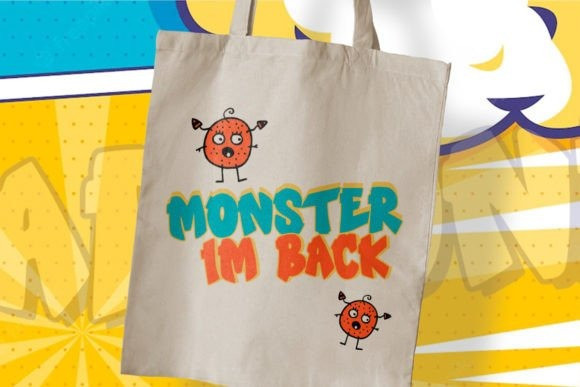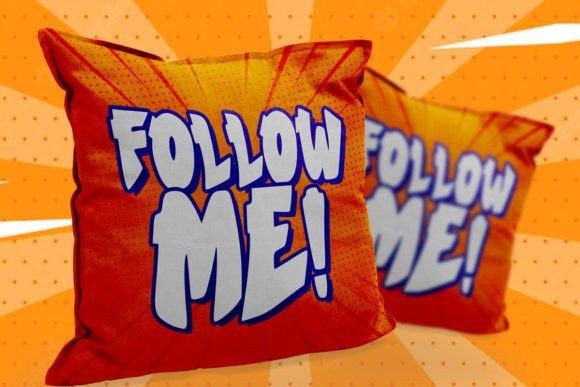
Marzone Font
Marzone Display Font is a cool and fun cartoon display font. This font can enhance your creative projects such as Logos, Book Covers, Youtube Thumbnails, Food, Branding, and other creative projects.